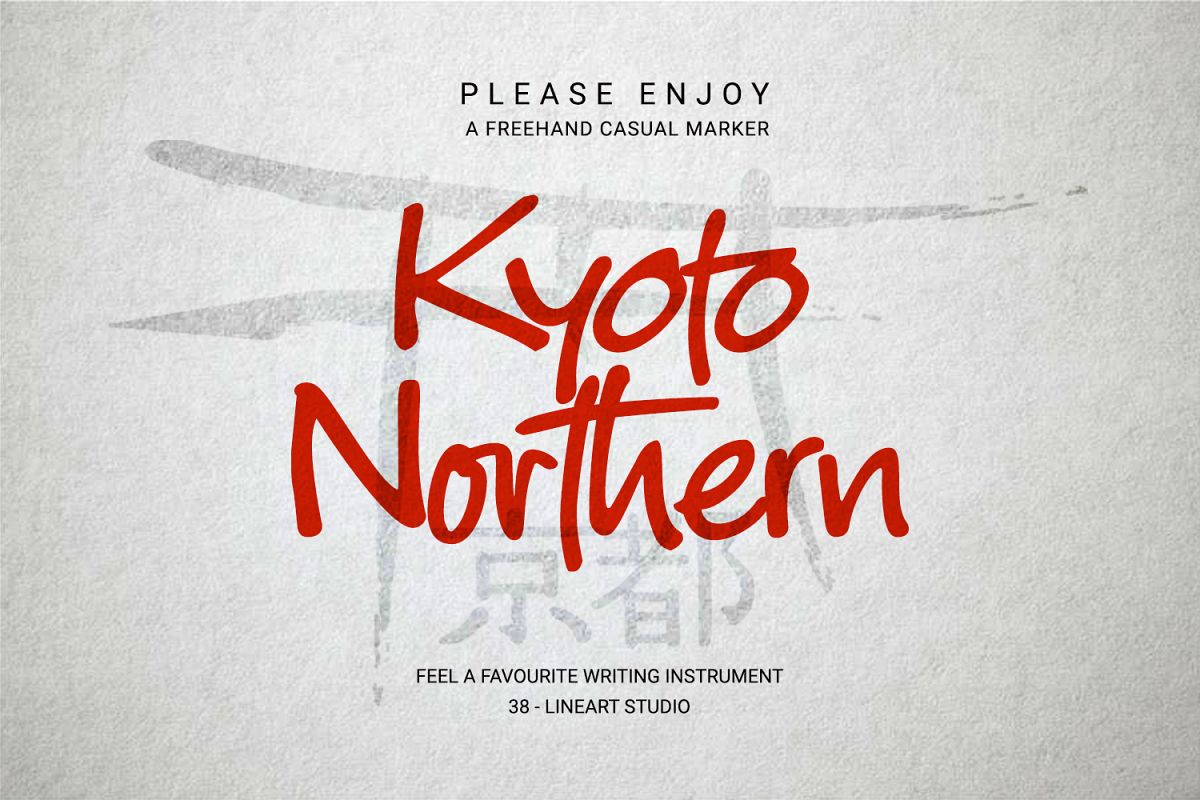
Kyoto Northern
kyoto northern
Kyoto Northern is a great choice for a brand identity, suitable for packaging, web banners, headlines and business cards, very unique and natural. This font is handwritten using a marker pen, equipped with a ligature following the habit of writing quickly, so you can feel the sensation of handwriting which is very natural. When you write in a relaxed and calm state, your writing will look very good and the writing flows well. Kyoto is the name of the city that we chose as a representative of calm and natural. Type and feel the amazing handwriting.